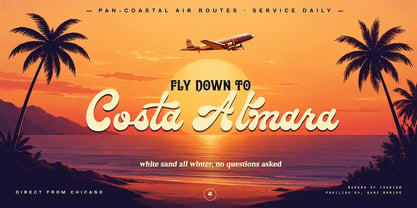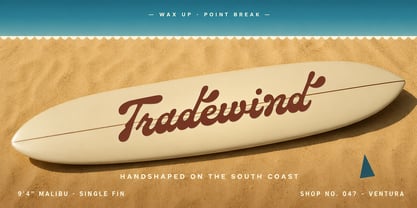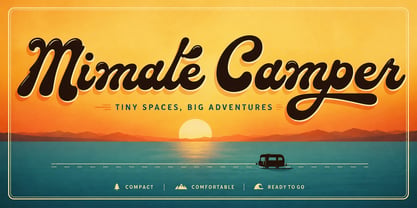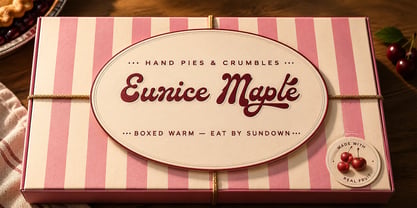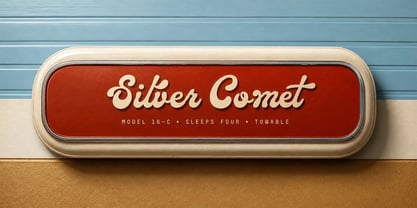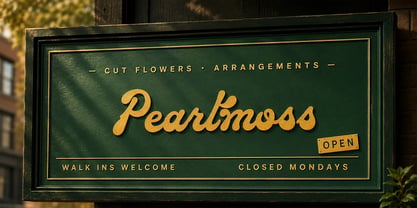
Mimale Camper
The Mimale Camper Font Family was designed by Måns Grebäck and published by Mans Greback. Mimale Camper contains 4 styles and family package options. More about this family
Mimale Camper is a connected monoline script in the family of mid-century sign work.
The strokes hold a steady weight throughout — no contrast, no expansion — and every letter joins to the next, including the uppercase. Loops are full and circular, terminals close cleanly, and the slant runs at a relaxed angle. The numerals match the lowercase in weight and rhythm so a phone number sits at home inside a sentence.
It looks at home airbrushed along the side of an aluminium camper from the late fifties, or hand-inked across the top of a roadside diner menu.
The font is built with advanced functionality and guaranteed top-notch quality, containing stylistic and contextual alternates, ligatures and more automatic and manual features; all to give you full control and customizability.
It has extensive lingual support, covering all Latin-based languages, from North Europa to South Africa, from America to South-East Asia. It contains all characters and symbols you'll ever need, including all punctuation and numbers.
Designed and created by Mans Greback.